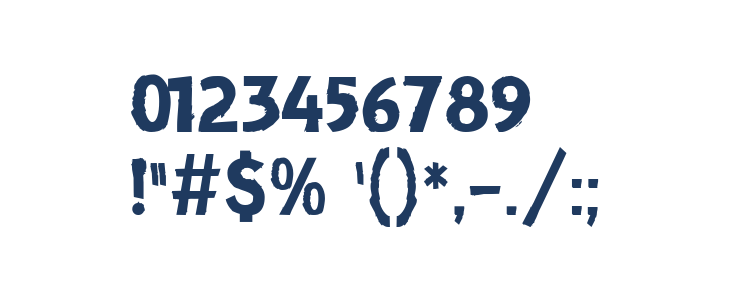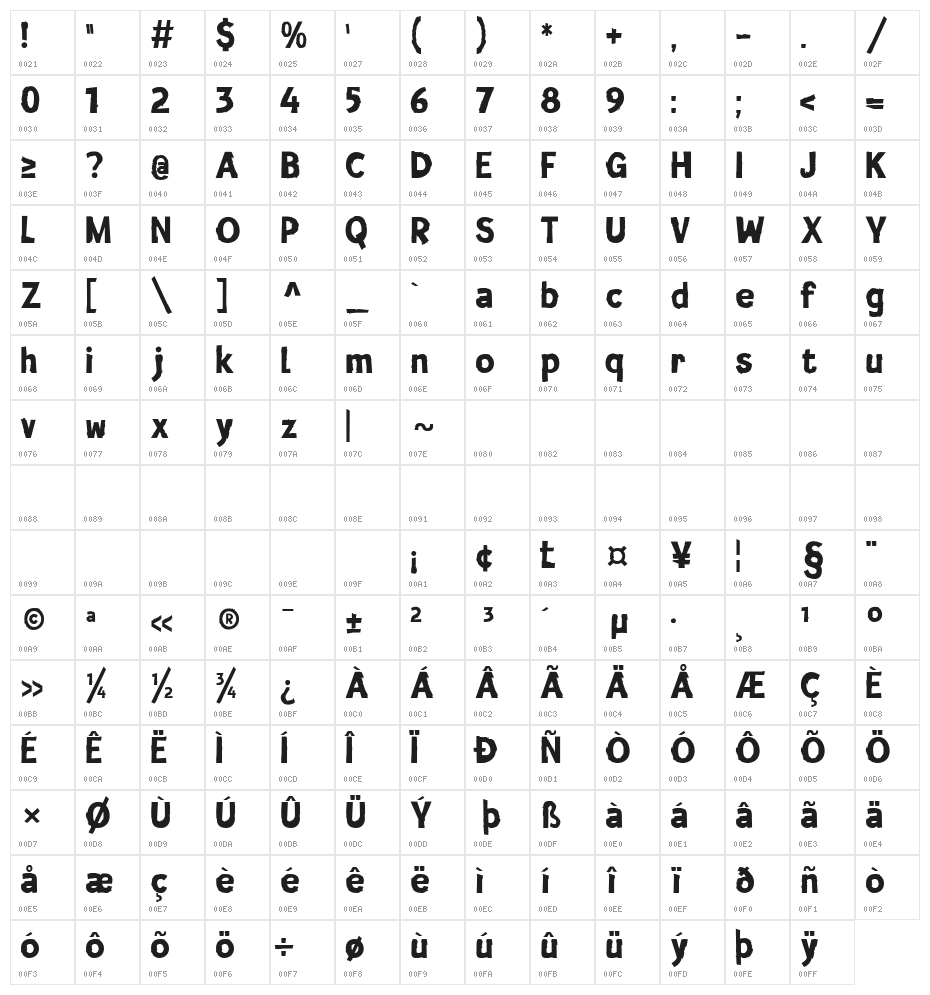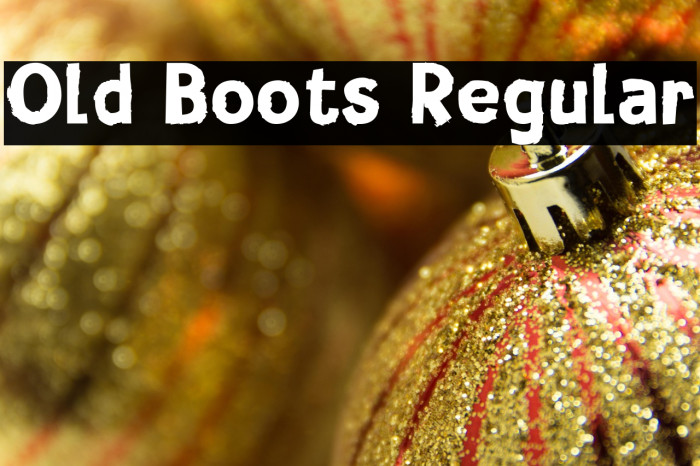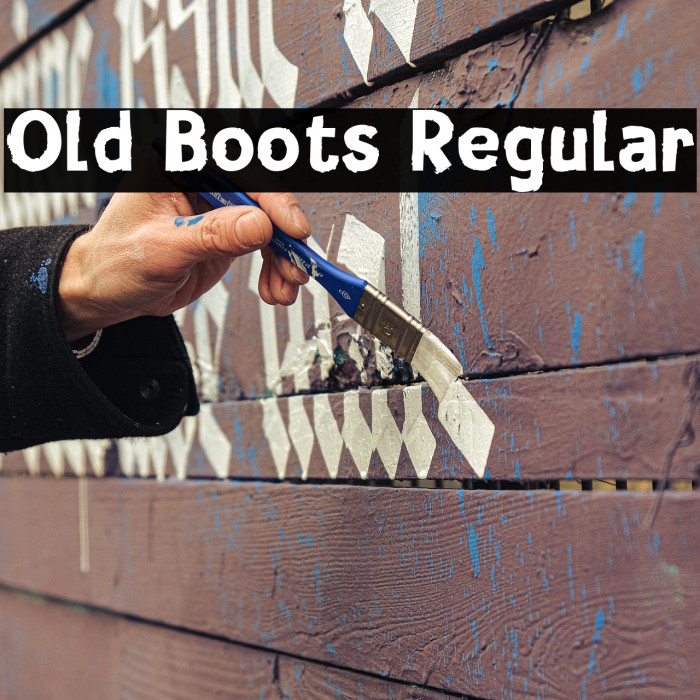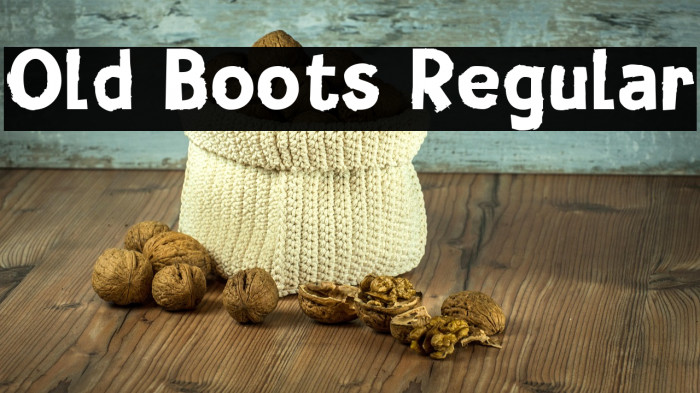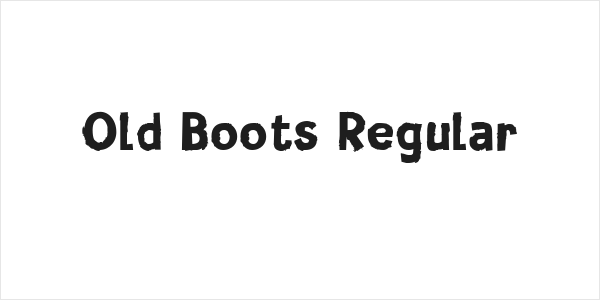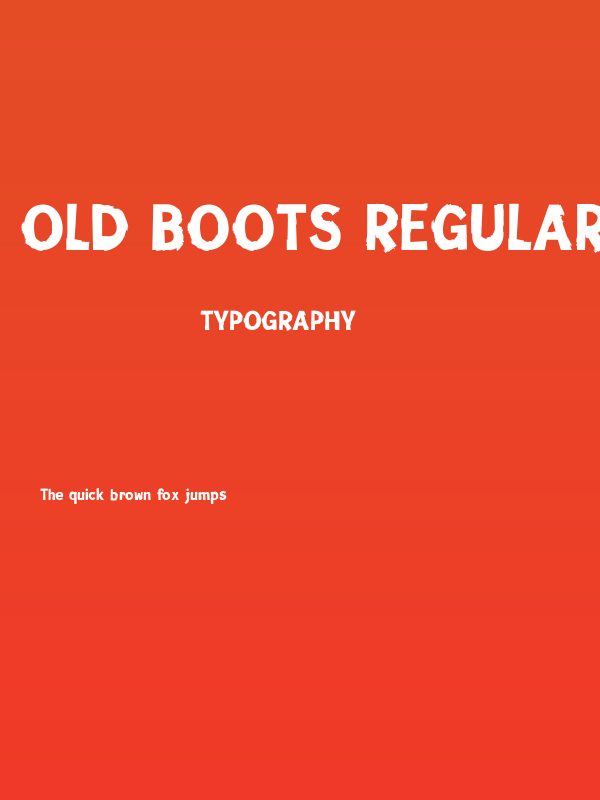
Old Boots Regular Font
Old Boots Regular Description
This font features a rugged, distressed appearance with uneven edges and a bold presence. The characters are designed to mimic a hand-painted or stamped look, giving it a vintage and rustic feel. The uppercase and lowercase letters maintain a consistent style, with noticeable irregularities that add to its charm. Numbers and special characters follow the same aesthetic, making it suitable for projects that require a touch of authenticity and character. The font's boldness ensures it stands out, while the rough texture adds a layer of depth and interest.
| Proposed Projects | Ideal for branding, posters, signage, and any design needing a rustic or vintage touch. |